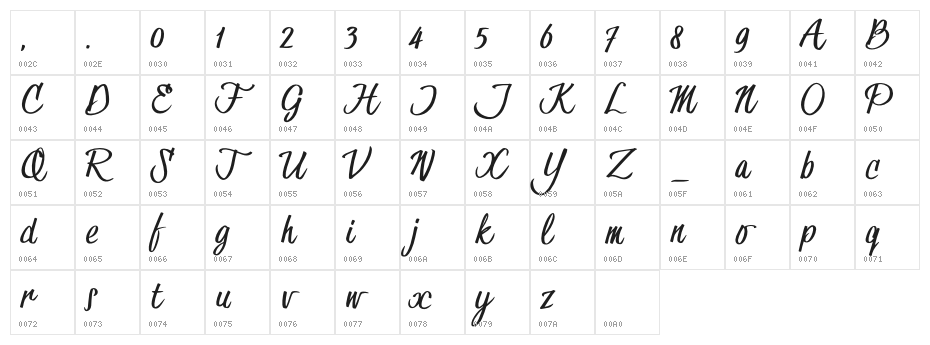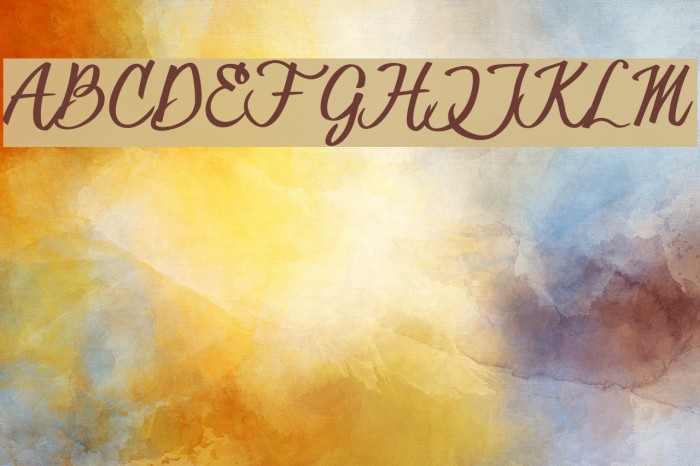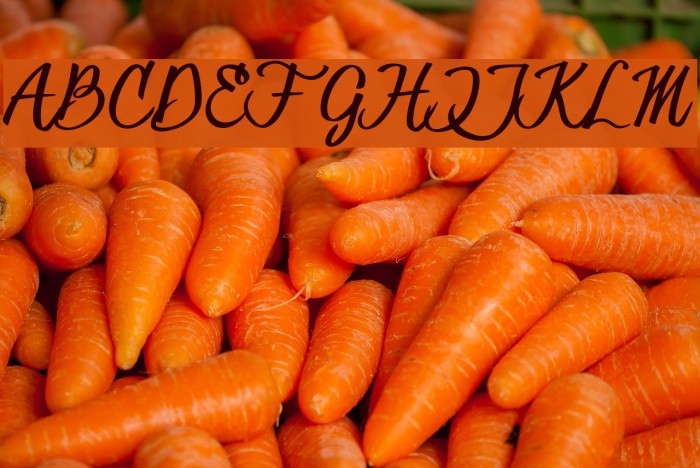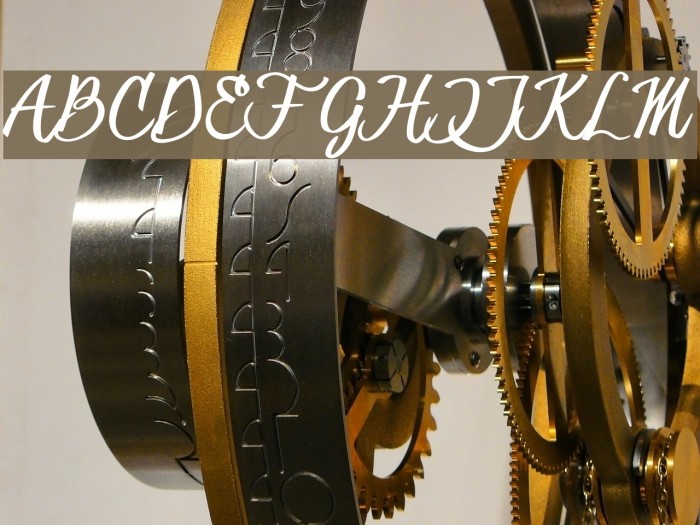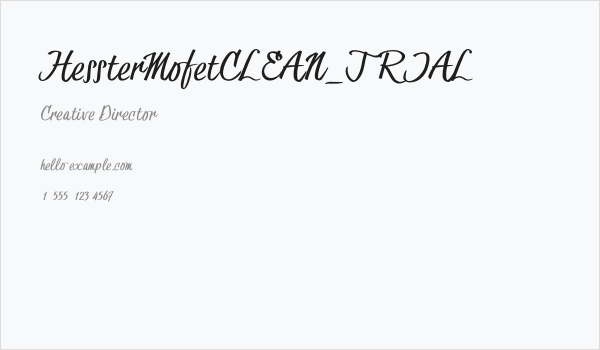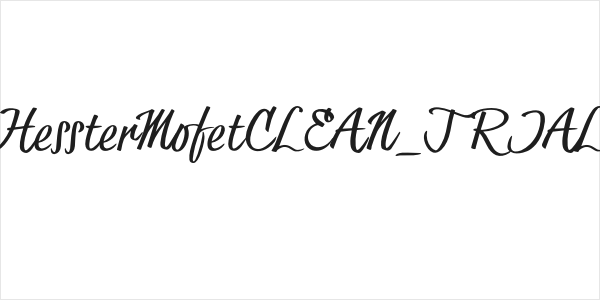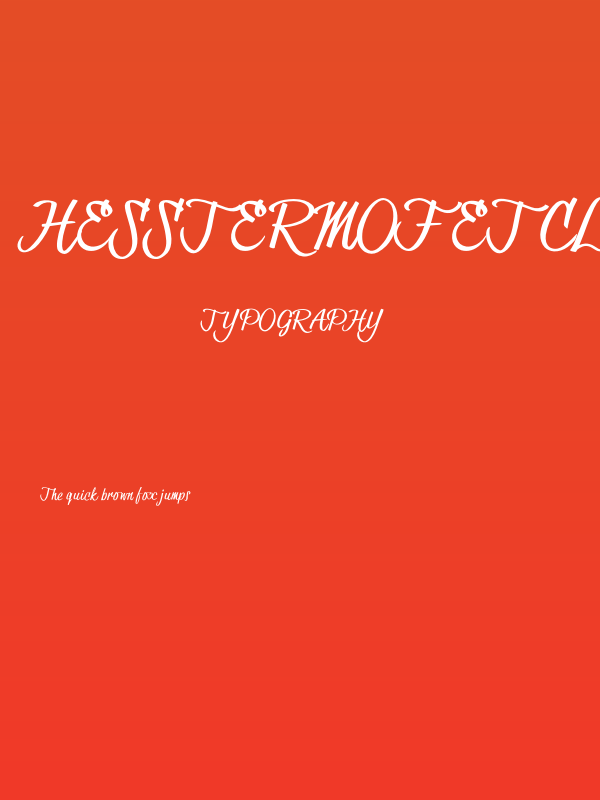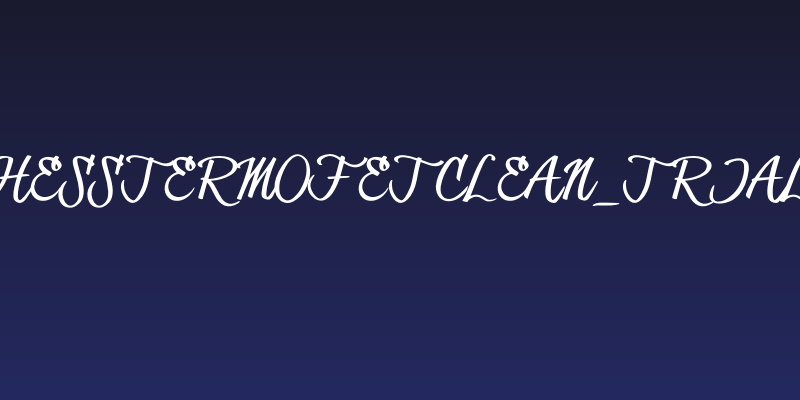
HessterMofetCLEAN_TRIAL Font
HessterMofetCLEAN_TRIAL Description
This font features a dynamic and flowing script style, characterized by its elegant and cursive letterforms. The uppercase letters are slightly more formal, with a consistent slant and smooth curves that give a sense of movement. The lowercase letters are more playful, with varied heights and loops that add a whimsical touch. The numerals maintain the cursive style, ensuring a cohesive look across all characters. This font is perfect for projects that require a personal and artistic touch, such as invitations, greeting cards, or branding materials. The overall design is both stylish and approachable, making it versatile for various creative applications.
| Proposed Projects | Ideal for invitations, greeting cards, branding, and artistic projects. |